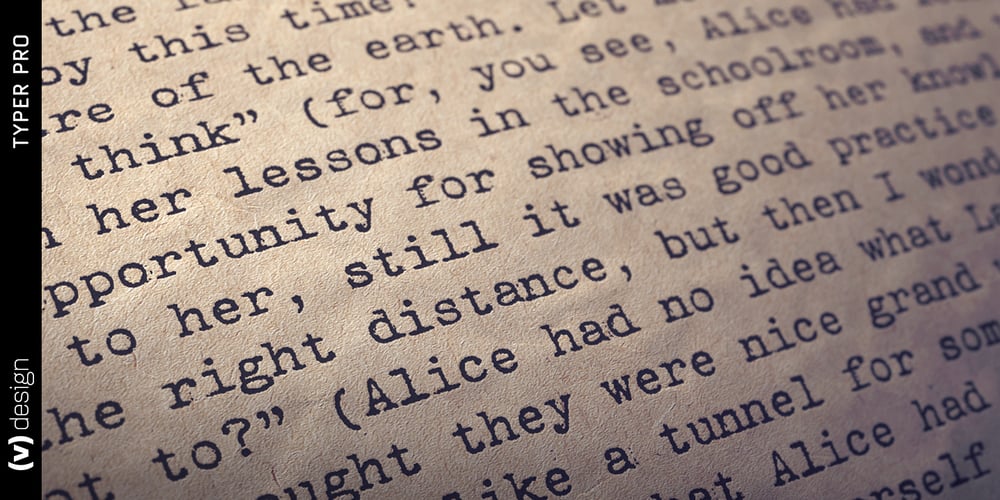
Typer Pro Font Family was designed by Vít Šmejkal and published by (v) design. Typer Pro contains 8 styles and family package options. Typer Pro (formerly Consul Typewriter Pro) is a modern OpenType font family reviving the look of old typewriters. Its carefully converted forms are detailed enough even for high pointsizes while keeping a reasonable number of outline points. Typer Pro comes in two variants: Typer Pro Mono is strictly monospaced (all characters occupy the same amount of horizontal space – this way old typewriters usually operated). However, sometimes a more even appearance may be desirable. Therefore, Typer Pro Text has been proportionally altered for a more pleasant and balanced look. Moreover, it is possible to achieve both proportional and monospaced look in both families via Stylistic Sets. You can choose from four different weights in each family and pick characters from its extensive glyph set. Typer also contains a number of Stylistic alternates, randomly replaced alternative letters to avoid the repetition of letters in a word. Typer Pro is a versatile typeface and is perfectly legible even at small sizes and on-screen. When printed, it looks best at its original size around 11–12 pt. Typer supports many OpenType features and offers great multilingual support for most of Latin-based languages. Feel free to download the detailed PDF Specimen.